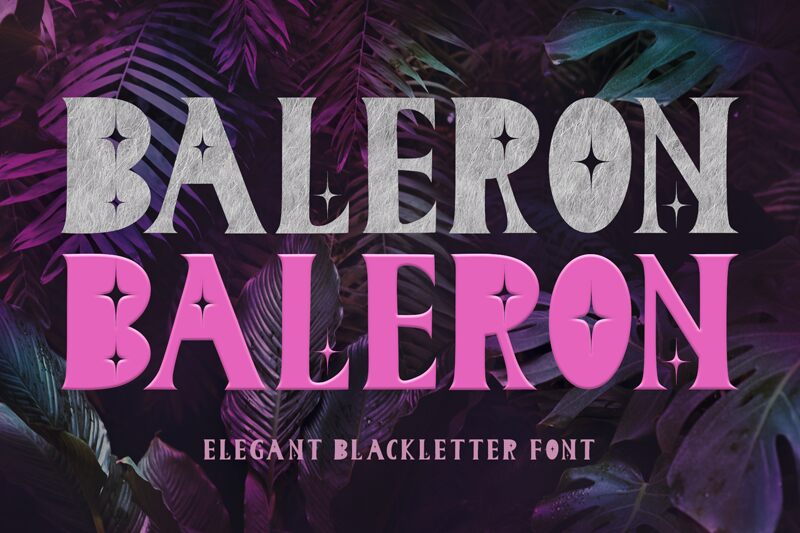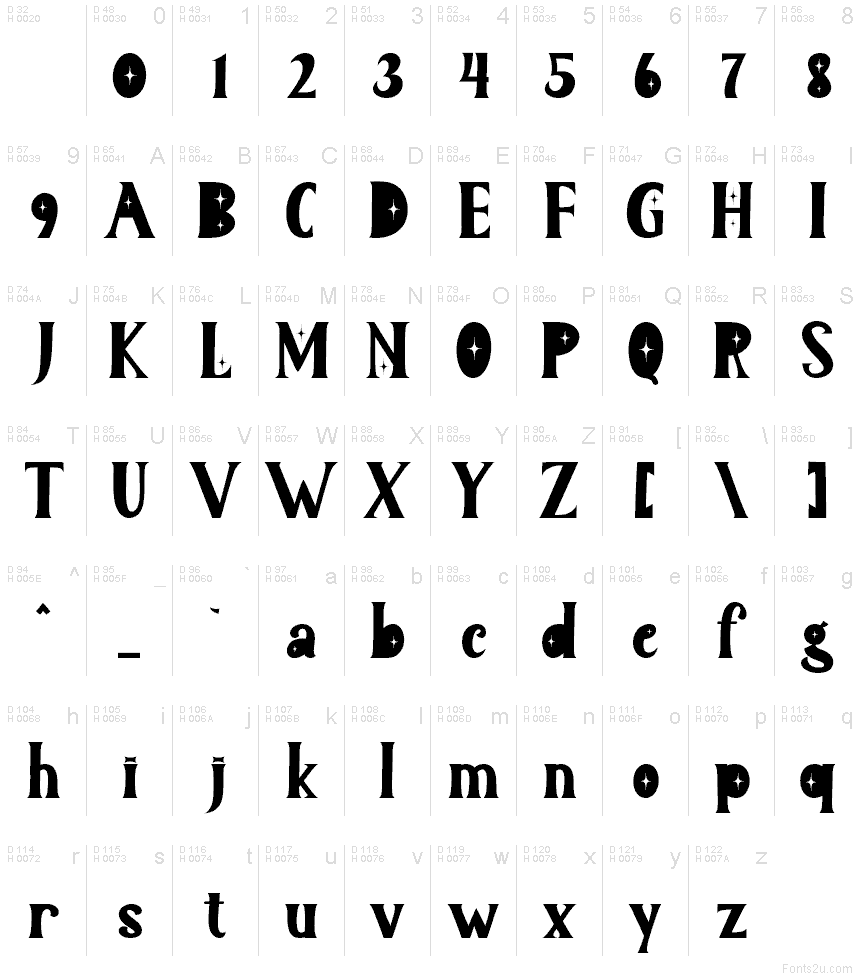
Baleron
Baleron font by Yoga Letter is a free gothic typeface with a mischievous twist: gleaming star-shaped counters cut through inky, monolithic letterforms. The strokes feel carved and velvety—like wet ink pressed into velvet—while those celestial cutouts catch light and add a little drama to every word. It reads bold and moody, but the sparkle keeps it playful, turning heavy black shapes into something strangely luminous.
Using Baleron, headlines snap with a night-market vibe that works beautifully for band posters, occult or fantasy book covers, Halloween packaging, tattoo studio branding, craft beer labels, and indie game titles. This free font thrives big and tight, where its inner glints stay crisp. Pair with a simple geometric sans for body copy to keep the magic anchored and legible.